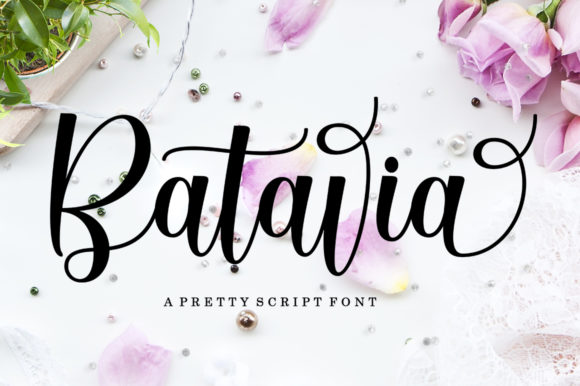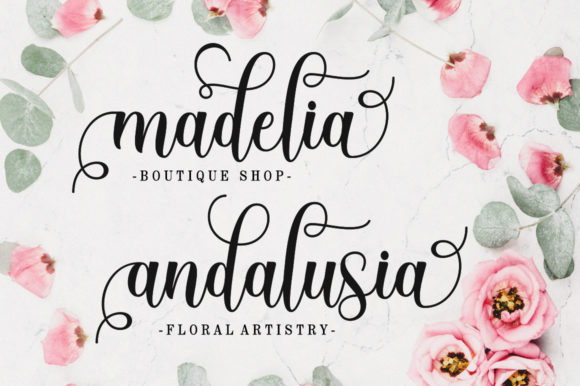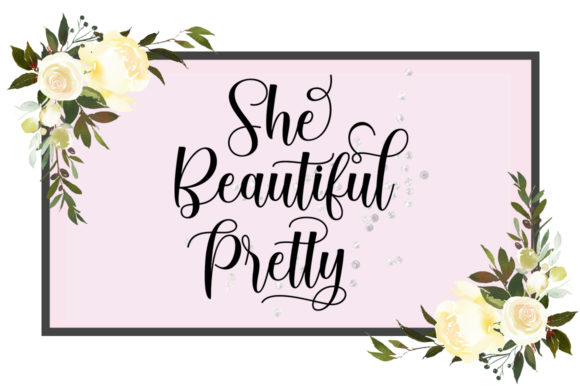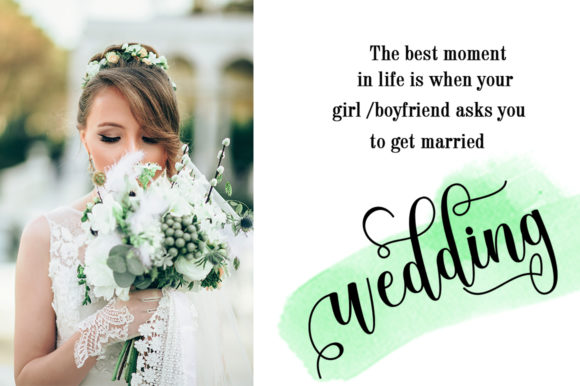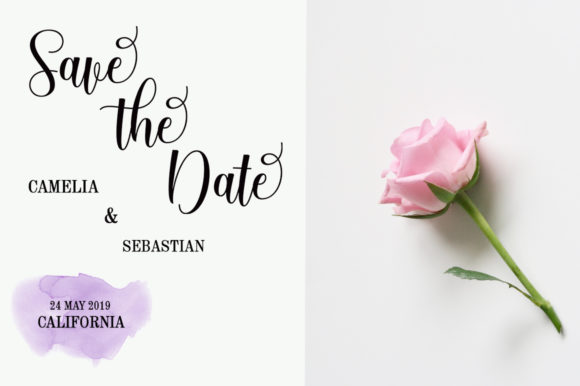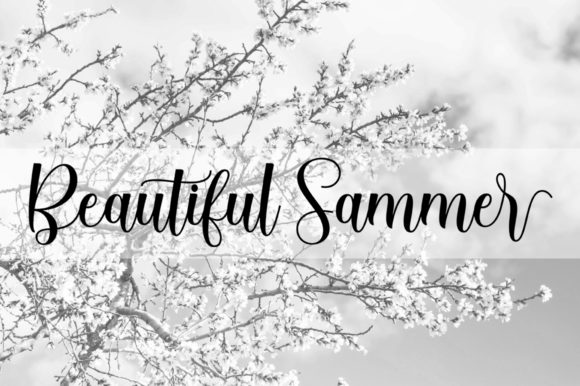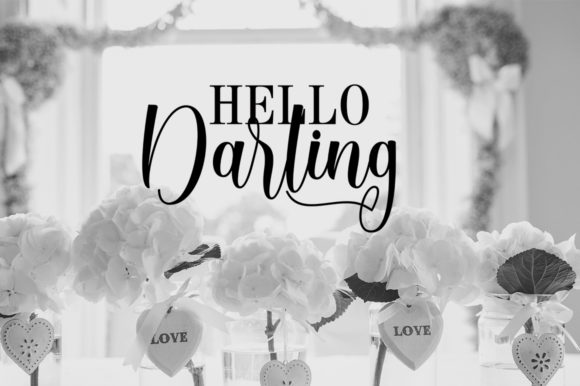
HomeScript FontsBatavia Script Font Script Fonts Batavia Script Font FacebookXPinterestWhatsApp Batavia Script Font Poster 2 Batavia Script Font Poster 3 Batavia Script Font Poster 4 Batavia Script Font Poster 5 Batavia Script Font Poster 6 Batavia Script Font Poster 7 About Batavia Script Font Batavia Script is a modern calligraphy design that combines an elegant and beautiful style with unique swashes. DOWNLOAD NOW People also explored Riofam Font Black Roast Font Writing Smaller Font Smart Ghosting Font Farmhouse Too Font Nacho Font Blaze Font Happy Valentine Ranelte 291 0 TagsBatavia Script Font Previous articleHappyly Ever After FontNext articleGoatherdam Font LEAVE A REPLY Cancel reply Comment: Please enter your comment! Name:* Please enter your name here Email:* You have entered an incorrect email address! Please enter your email address here Website: Save my name, email, and website in this browser for the next time I comment. Personal Use Free Hatia Script Personal Use Free Read more about this font The Relapse Personal Use Free Read more about this font Nouradilla Script Free Version Personal Use Free Read more about this font Hommy You Personal Use Free Read more about this font BLOG Fonts That Capture the Spirit of New York City New York City is more than just a place—it’s an experience, a rhythm, a visual language... Using Fonts in Digital Marketing: Tips to Strengthen Your Brand Identity How to Cut Any Font on Cricut: Convert a Font to SVG (Free) Top 10 Handwritten Fonts That Elevate Your Designs